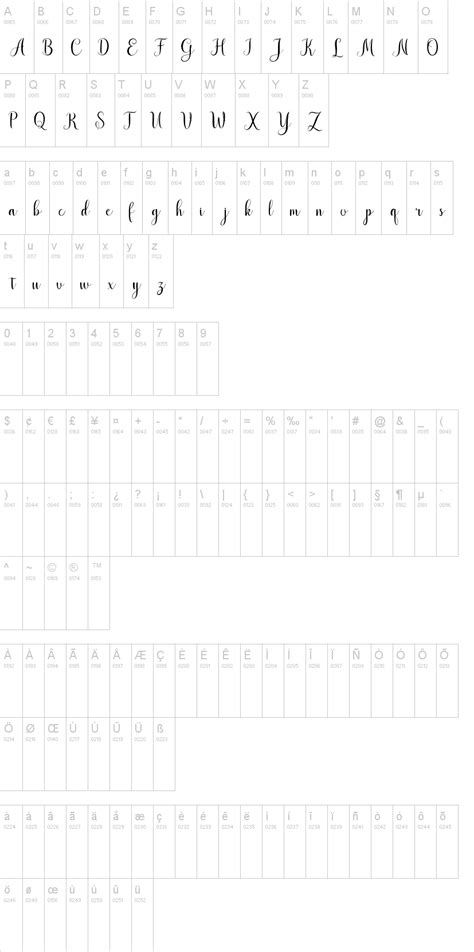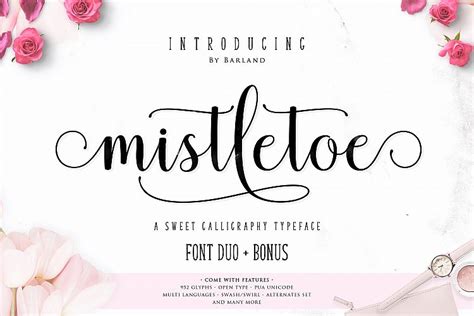
Mi teiyng script font will also work at larger sizes where it reveals the texture (represent of ink) and paper. Uploaded by sandy (1 styles). You can use this font for logos, signatures, handwritten quotes, badges, labels, packaging design. Mistletoe script is a trademark of barland. Mi teiyng script font is an old script font, inspired by traditional handwriting.
2 weeks ago microsoft activation scripts 1.4. Imperfect style ups and downs, like a dance letters, smooth, clean and simple. Feb 8, 2018 by dafont leave a comment. This fun irregular happy font is perfect for christmas cards and notes! Mistletoe kisses is a festive script font with decorative alternate characters. Report a violation add to list. The uploading tool makes it simple to contribute your own work or other typography you admire. Mistletoe typeface font created in november 2018. Mi teiyng script font is an old script font, inspired by traditional handwriting. Every font is free to download! Introduce my new font mistletoe font duo is a unique blend of classic and modern font. Шрифт mistletoe font duo cyrillic. The uppercase set has initial swashes and there.
Mi teiyng script font is an old script font, inspired by traditional handwriting. Report a violation add to list. You'll find mistletoe font by. You can use this font for logos, signatures, handwritten quotes, badges, labels, packaging design, social media. Feb 8, 2018 by dafont leave a comment.
Mistletoe font duo, hope this fun!
You can use this font for logos, signatures, handwritten quotes, badges, labels, packaging design, social media.